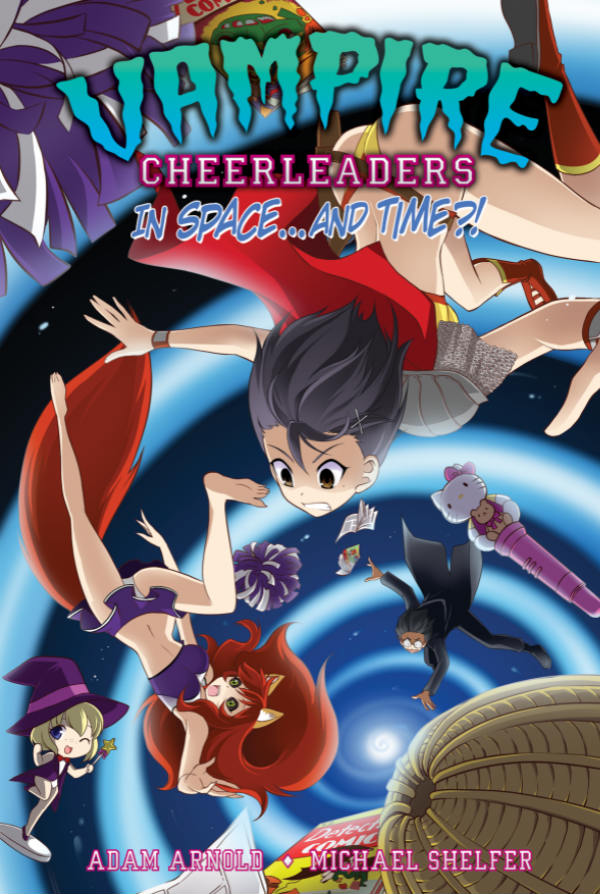
Vampire Cheerleaders Font
AdventureVampire Cheerleaders is an original English-language manga series written by Adam Arnold, illustrated by Michael Shelfer and published by Seven Seas Entertainment. The series follows the adventures of a squad of teenage vampires who really know how to show their school spirit.
Two fonts have been used in the logo of the manga series: the “VAMPIRE” part features a gruesome font named Green Fuz designed by Ray Larabie while the “CHEERLEADERS” part is very similar to Universidad 2015 designed by Woodcutter.